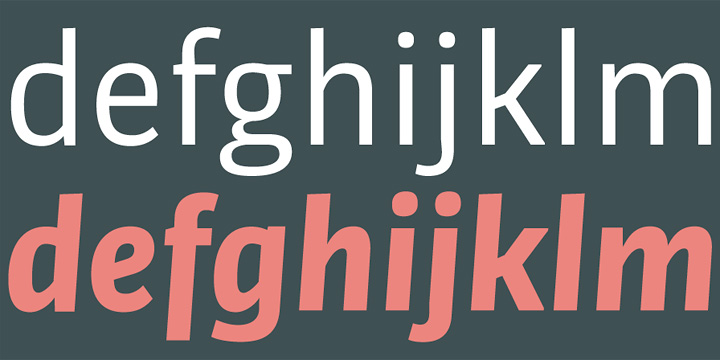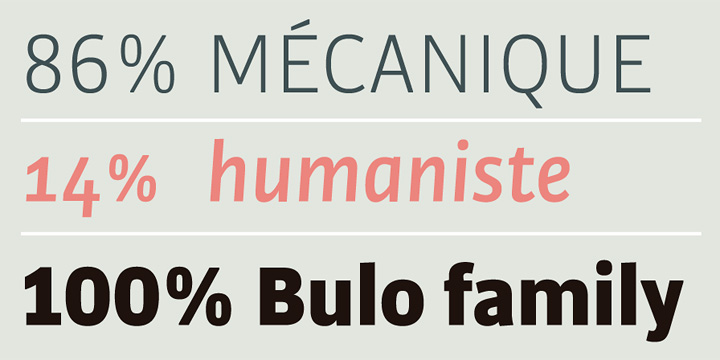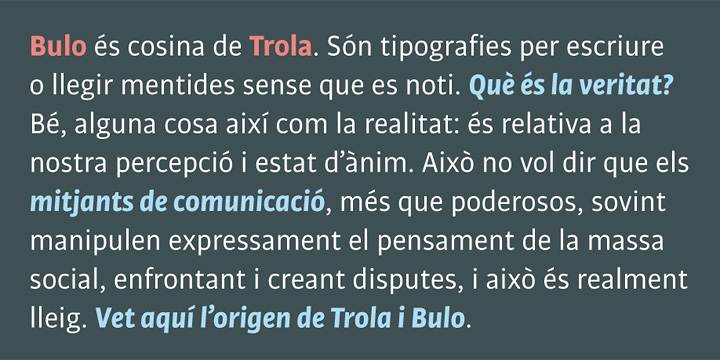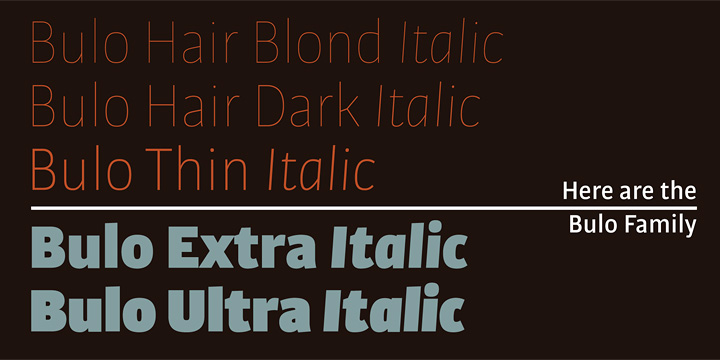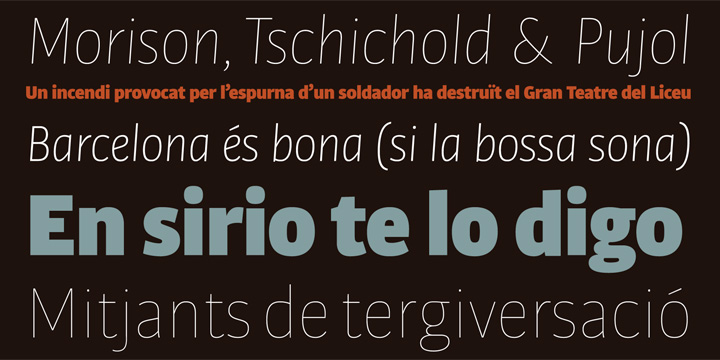
Bulo Font Family
Bulo Rounded is a real Rounded: not only the beginning and the end of the strokes are rounded, but also the counters and the intersections of the glyphs.
The result is a smooth effect that brings a warm feeling, and the rounded text is perceived in a logical and natural way.
• Designers: Jordi Embodas